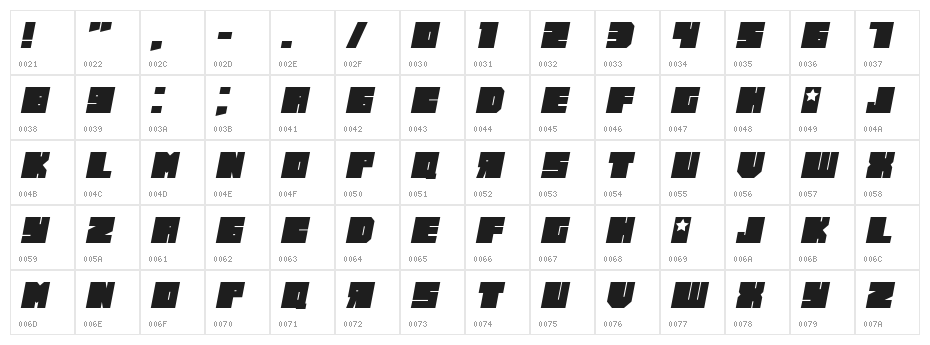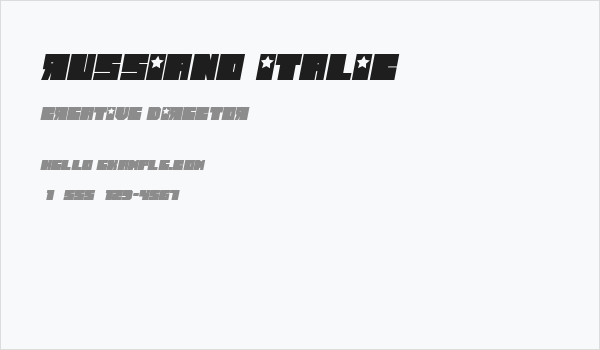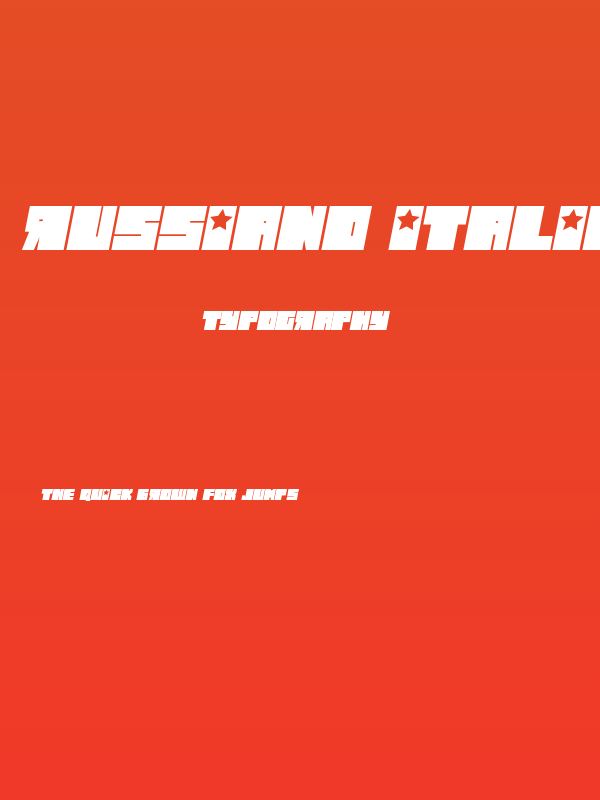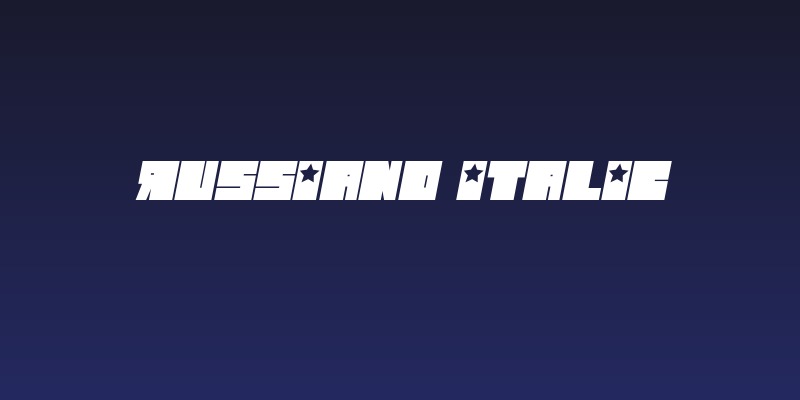
Russiano Italic Font
Russiano Italic Description
This font exhibits a bold, geometric style with a strong presence. The characters are blocky and angular, featuring sharp edges and a distinct, futuristic aesthetic. The uppercase letters are particularly striking, with some characters incorporating unique design elements, such as stars or slashes, adding to the font's dynamic appearance. The numbers and special characters maintain the same bold and angular design, ensuring consistency across all glyphs. This font is highly stylized, making it ideal for projects that require a modern and impactful visual statement.
| Proposed Projects | Ideal for use in branding, posters, video game titles, and any project requiring a modern, impactful look. |